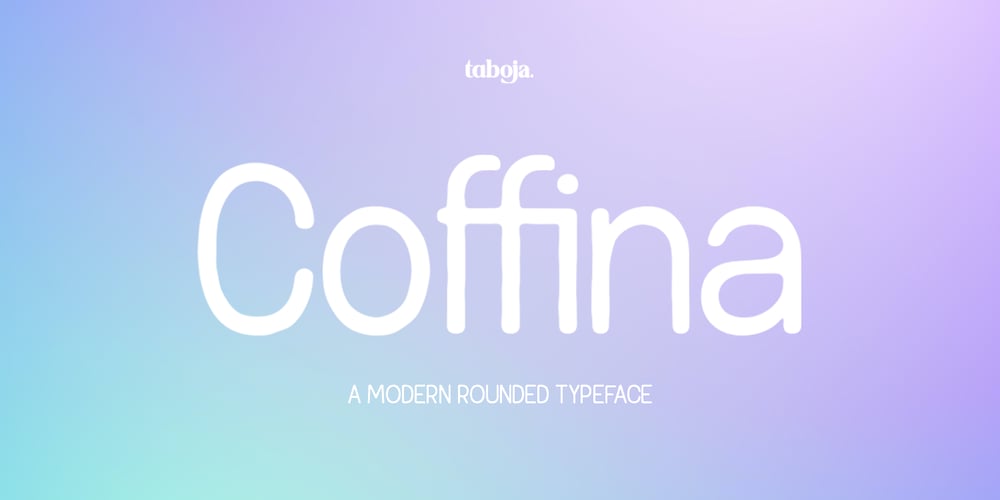
Coffina Modern Rough Sans Serif Font Family was designed by Yusilo Oktaprima Ardani and published by Taboja Studio. Coffina Modern Rough Sans Serif contains 1 styles and family package options. Introducing Coffina, a rounded and rough typeface that exudes an organic hand-written aesthetic. Making it an ideal choice for designs that require a modern vintage, elegant, or soft touch. Carefully crafted to suit a wide range of graphic design needs. Enhance your projects with this eye-catching typeface, perfect for creating a truly unique visual experience.Coffina Features: Regular Uppercase And Lowercase Alternates And Ligatures Numerals & Punctuation Accented characters Multilingual Support Unicode PUA Encoded We highly recommend using a program that supports OpenType features and Glyphs panels such as Adobe Illustrator, Adobe Photoshop CC, Adobe Indesign, or CorelDraw, so you can see and access all Glyph variations.While using this product, if you encounter any problem or spot something we may have missed, please don’t hesitate to drop us a message. We’d love to hear your feedbacks in order to further fine-tune our products.Stay creative and have a wonderful day.